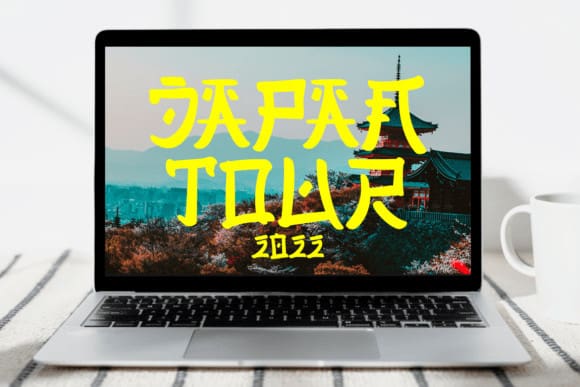
Japan Version Font
Japan Version Font is a Japanese-style display font, perfect for a wide spectrum of applications such as greeting cards, headlines, and many more! Add it to any of your creative projects, and it will give them a clean and exquisite feel.